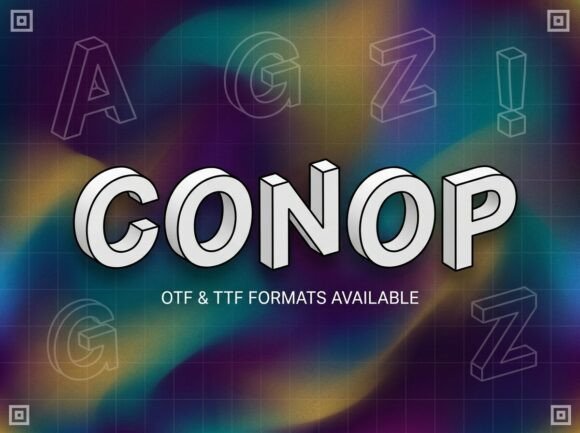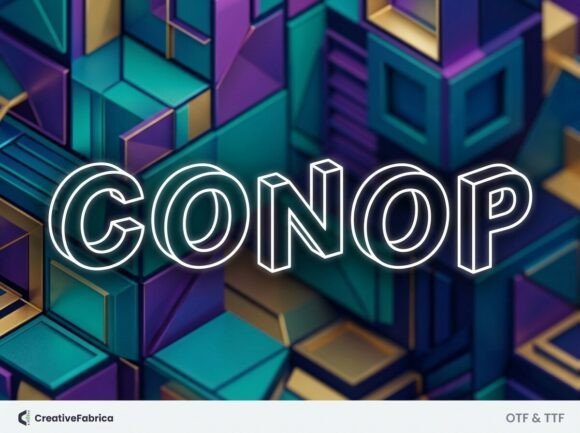
Introducing Conop Font: The Ultimate Decorative Display Font for Creative Minds
Are you tired of using the same old fonts for your creative projects? Look no further than Conop Font, a stunning decorative display font designed to be the center of attention. With its unique artistic elements and strong visual personality, this font is perfect for creators who want to break away from the ordinary and make a statement.
What Makes Conop Font Stand Out?
Conop Font is a versatile font that is perfect for bold headlines, artistic logos, and creative packaging. Its professional and polished finish ensures that your designs look sleek and sophisticated, while its unique artistic elements add a touch of personality and flair. Whether you’re a designer, craftsperson, or simply a creative enthusiast, Conop Font is the perfect choice for anyone looking to add some excitement to their projects.
Key Features of Conop Font
Important Note: All-Caps Display Typeface
This means that Conop Font is perfect for designs where you want to make a bold statement, but it’s not suitable for body text or other applications where lowercase letters are necessary.
Use Cases for Conop Font
So, what can you use Conop Font for? Here are a few ideas to get you started:
- Headlines and Titles: Use Conop Font to create bold, eye-catching headlines and titles for your blog posts, articles, and other written content.
- Logos and Branding: Conop Font is perfect for creating unique and memorable logos and branding elements for your business or personal projects.
- Packaging and Labeling: Add a touch of personality and flair to your packaging and labeling with Conop Font.
- Social Media Graphics: Use Conop Font to create stunning social media graphics that will help you stand out from the crowd.
Tips for Using Conop Font
Here are a few tips for getting the most out of Conop Font:
- Use it sparingly: Because Conop Font is an all-caps display typeface, it’s best to use it sparingly to avoid overwhelming your design.
- Experiment with colors and textures: Conop Font looks great in a variety of colors and textures, so don’t be afraid to experiment and find the combination that works best for your design.
- Pair it with other fonts: Conop Font looks great when paired with other fonts, so try combining it with a sans-serif or serif font to create visual interest.
Conop Font is a stunning decorative display font that is perfect for creators who want to break away from the ordinary and make a statement. With its unique artistic elements and strong visual personality, this font is versatile enough for bold headlines, artistic logos, and creative packaging, while maintaining a professional and polished finish. So why wait? Purchase Conop Font today and take your designs to the next level!